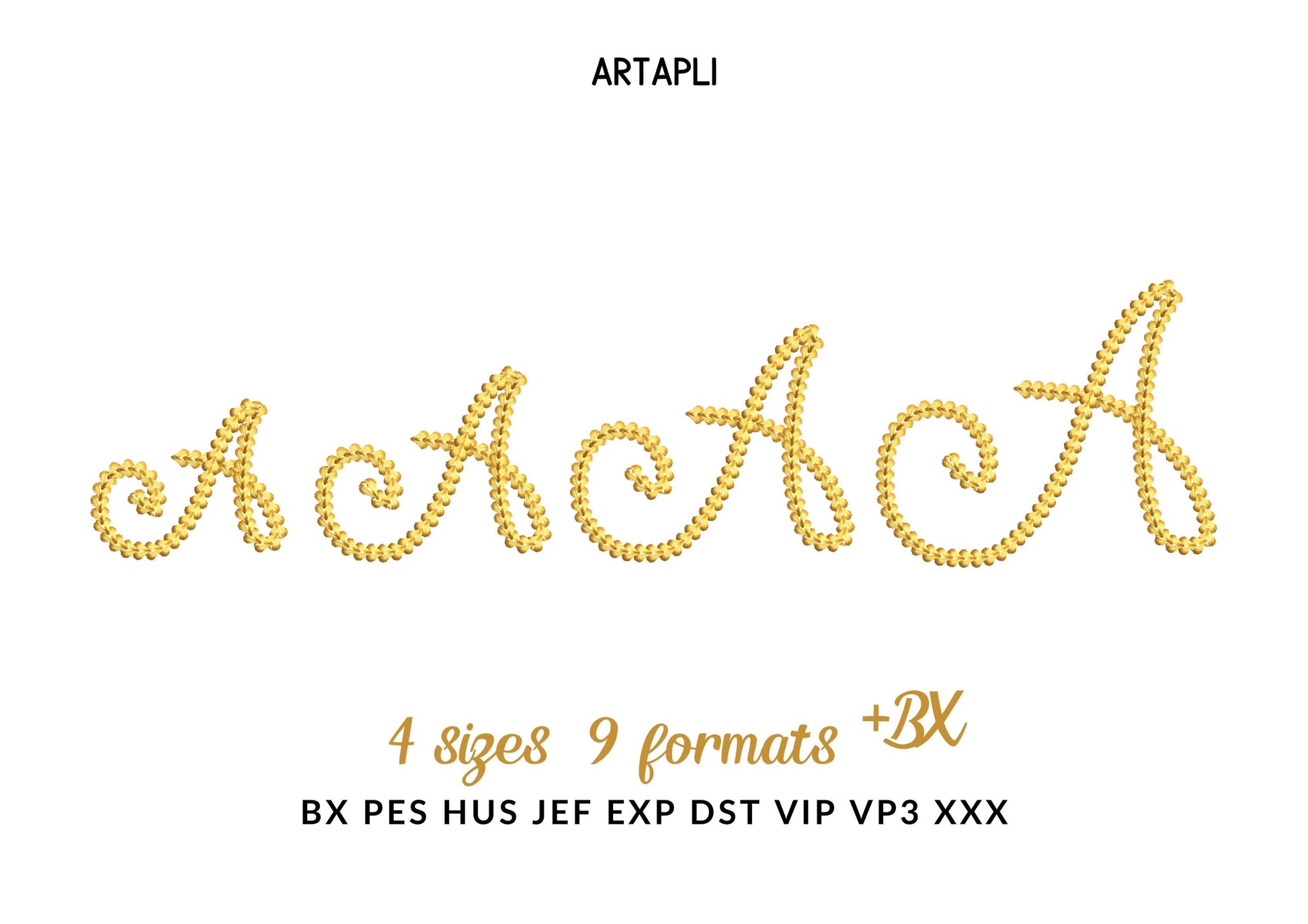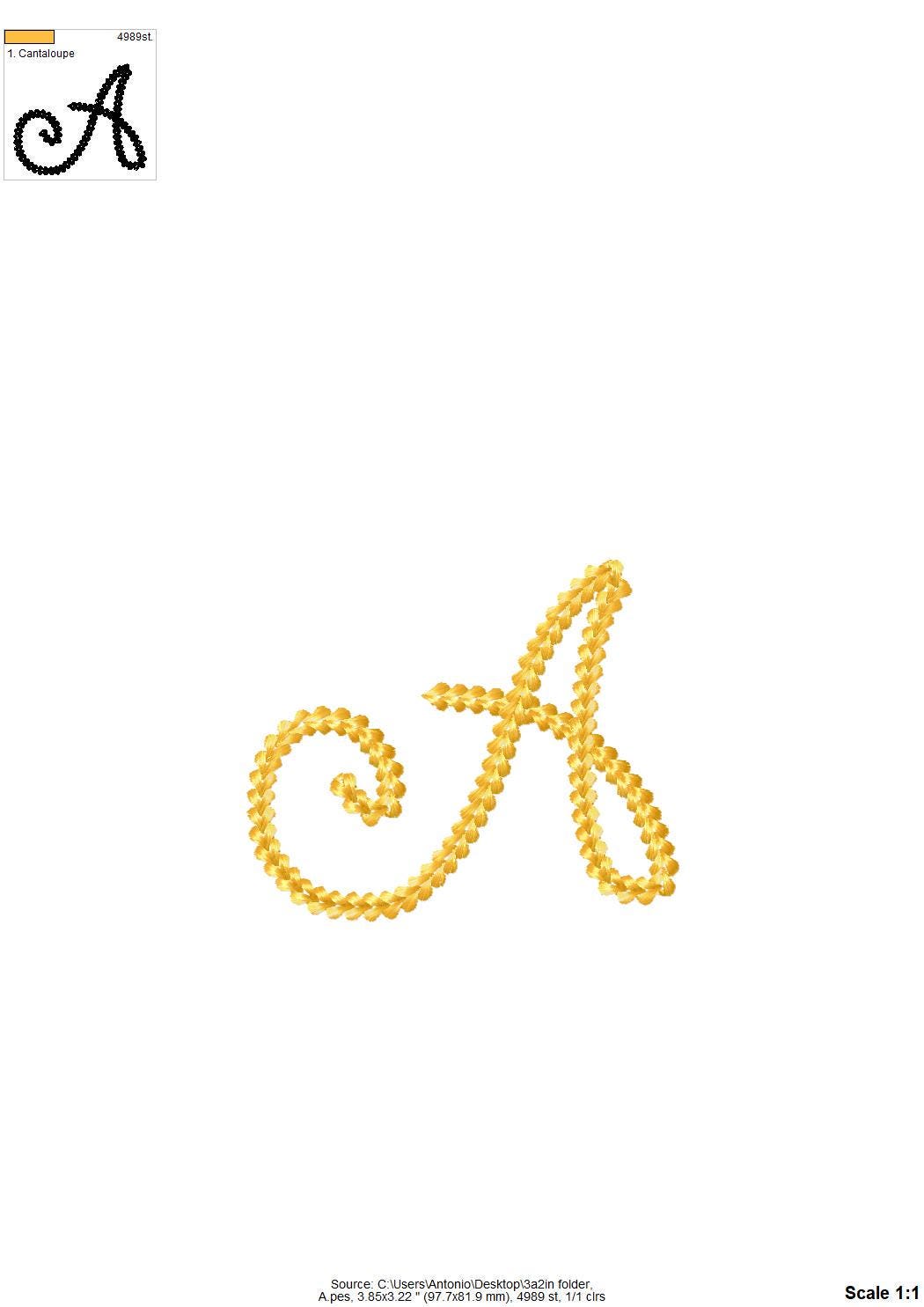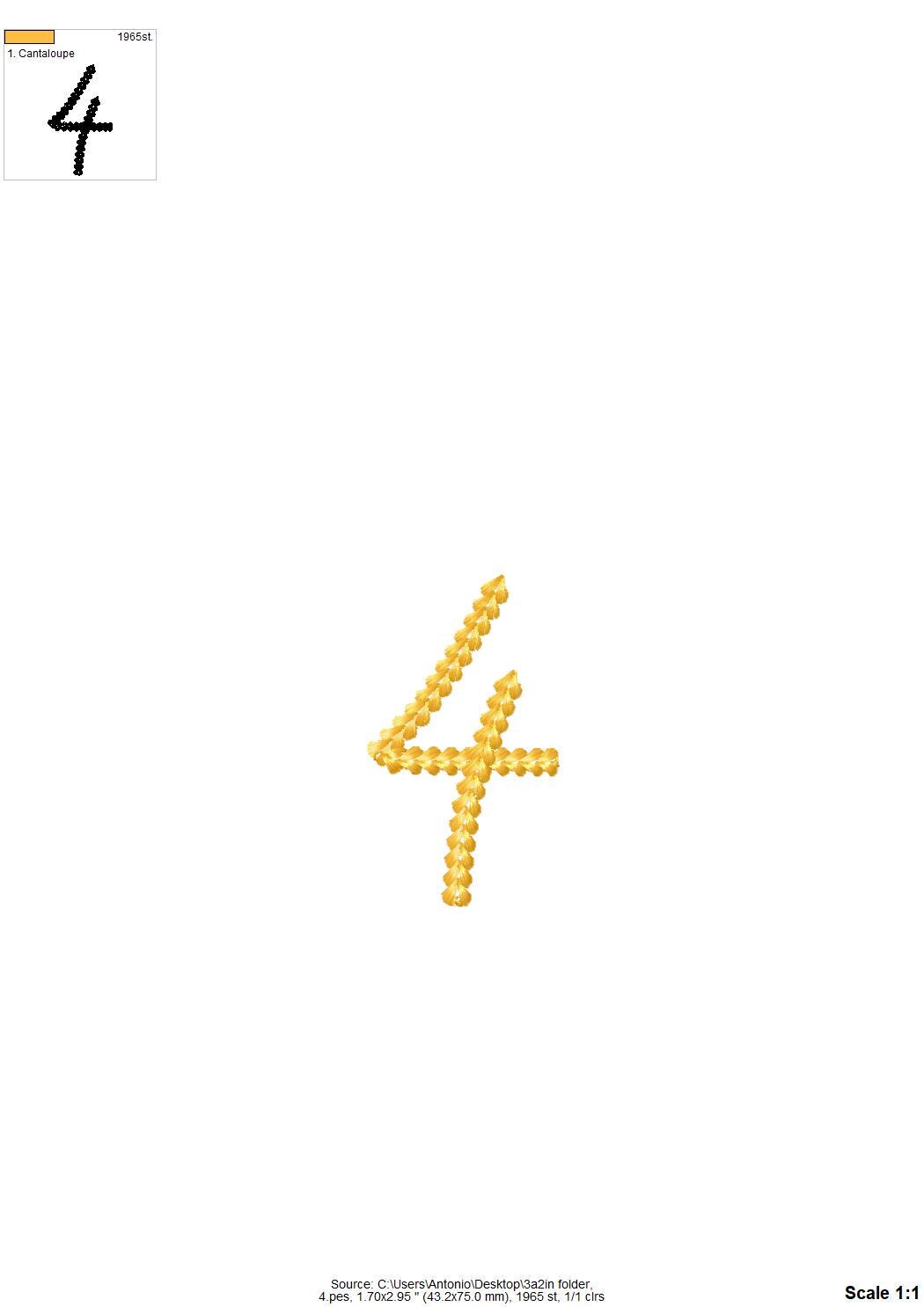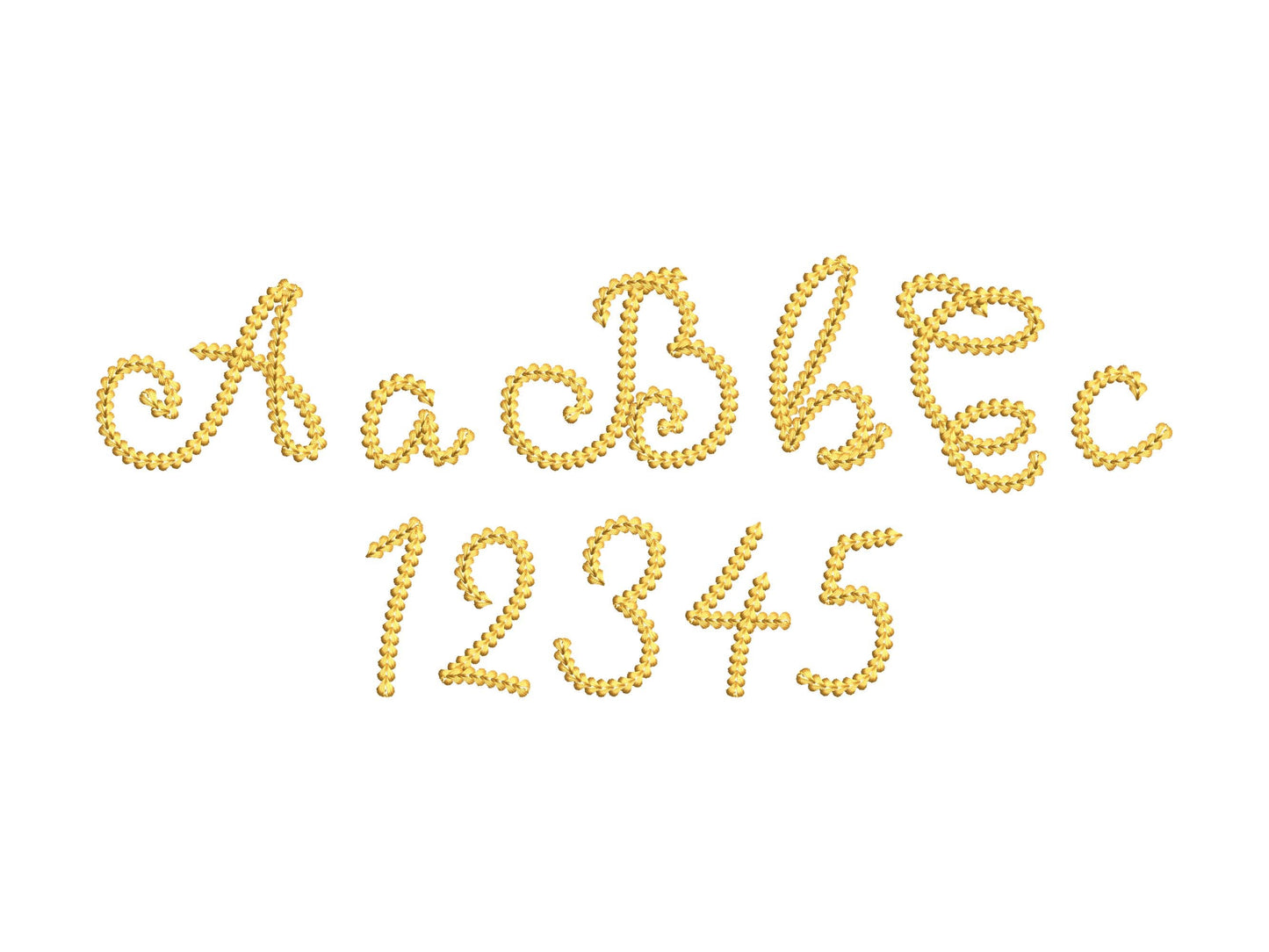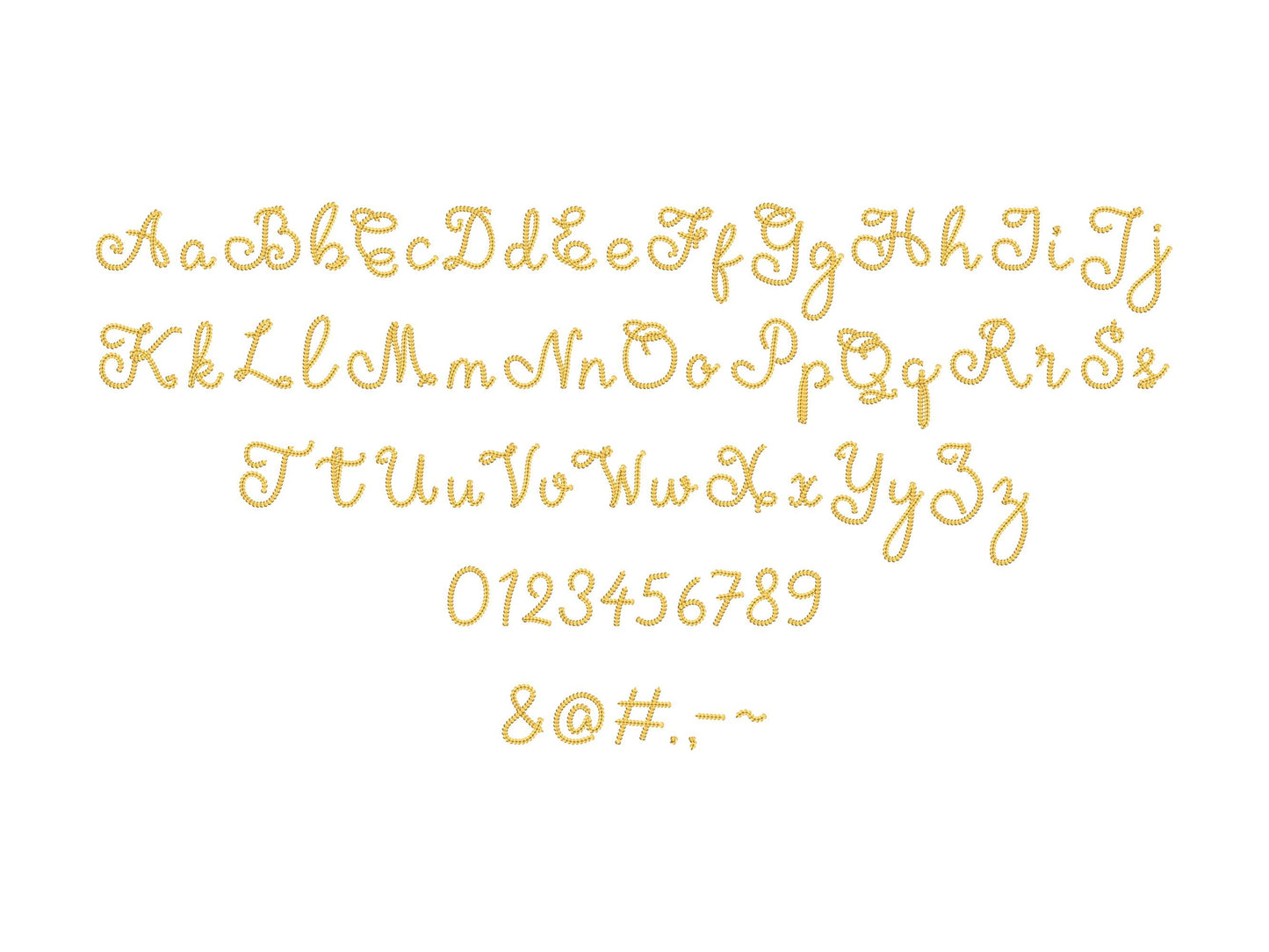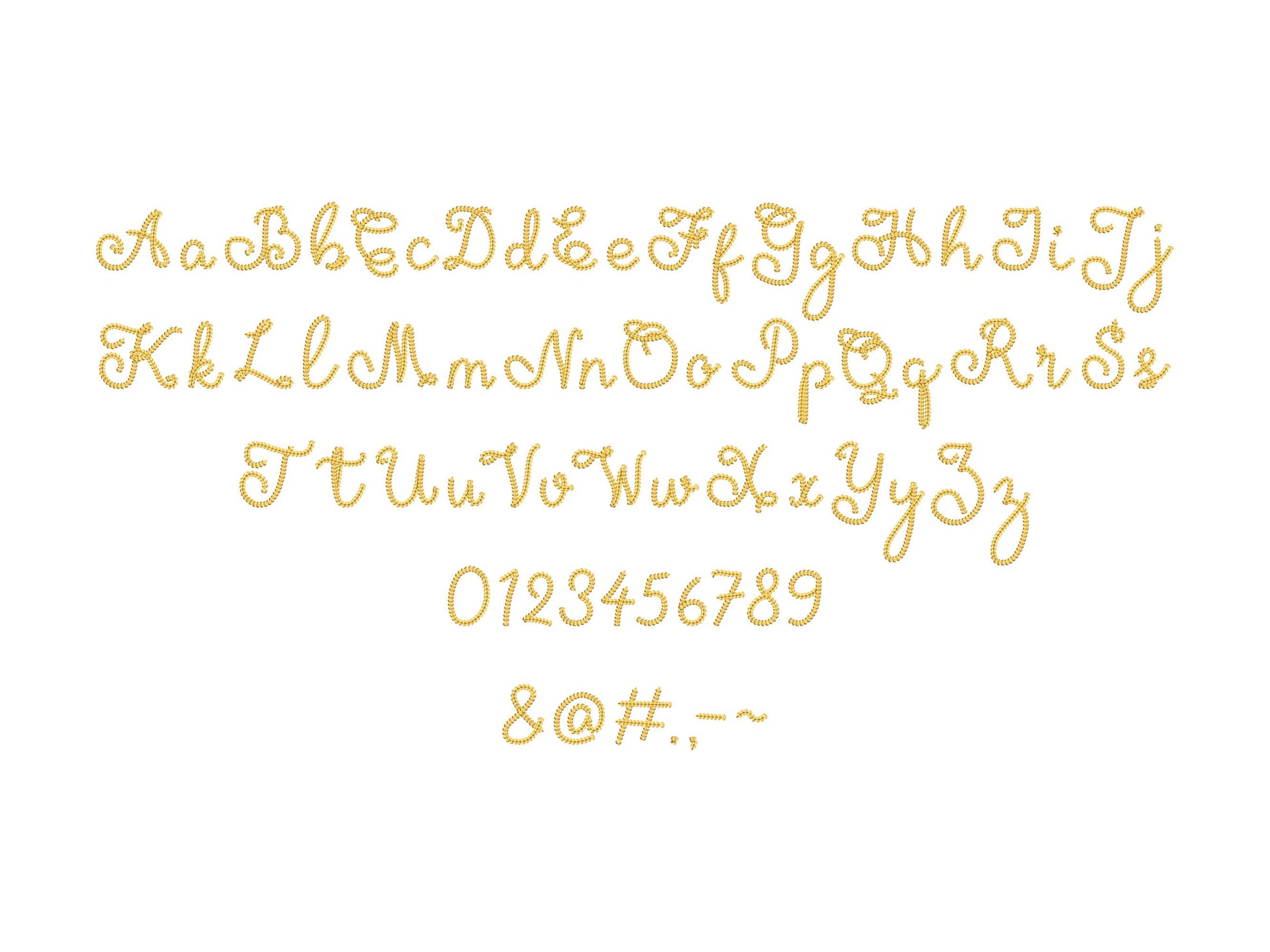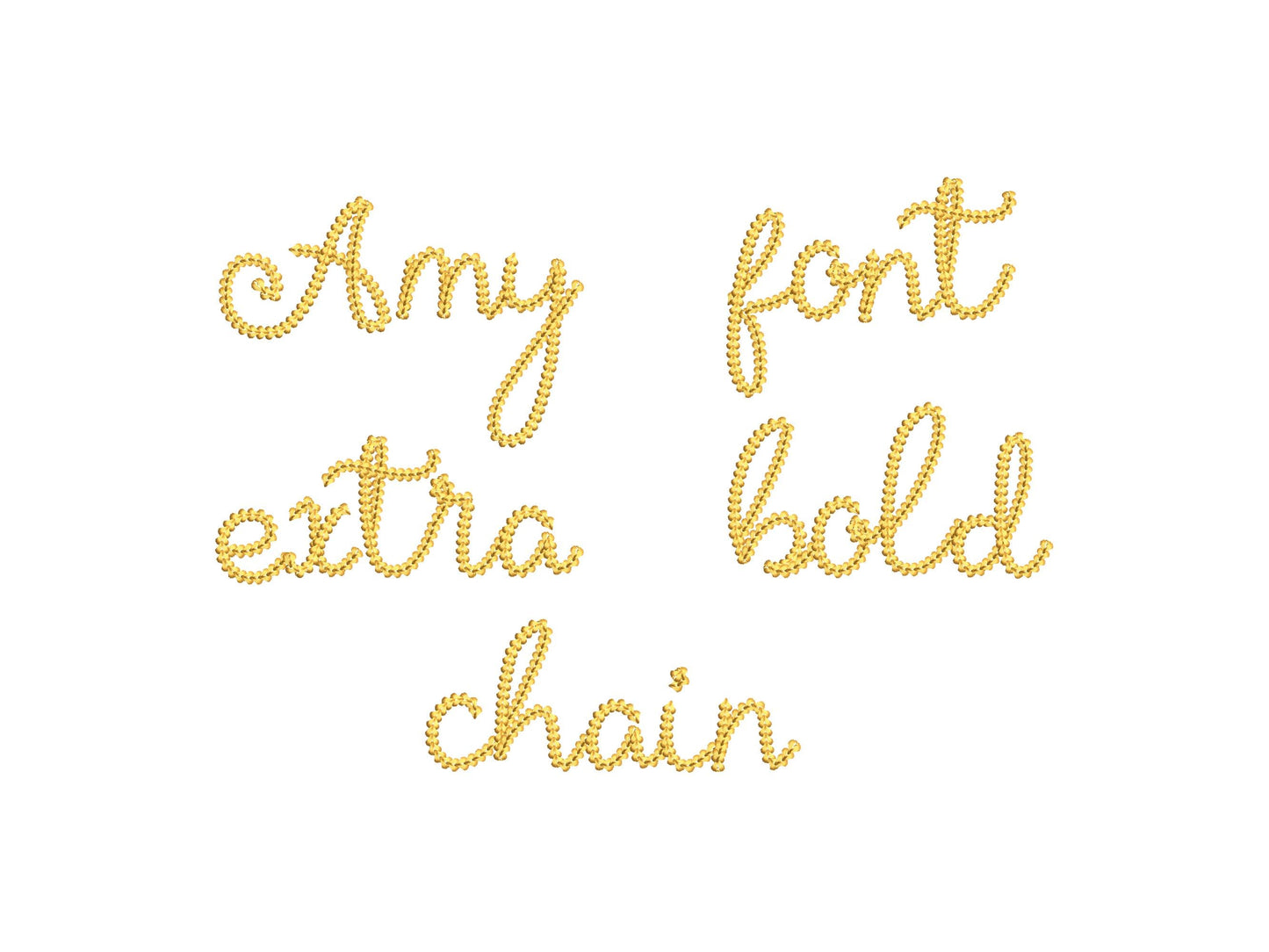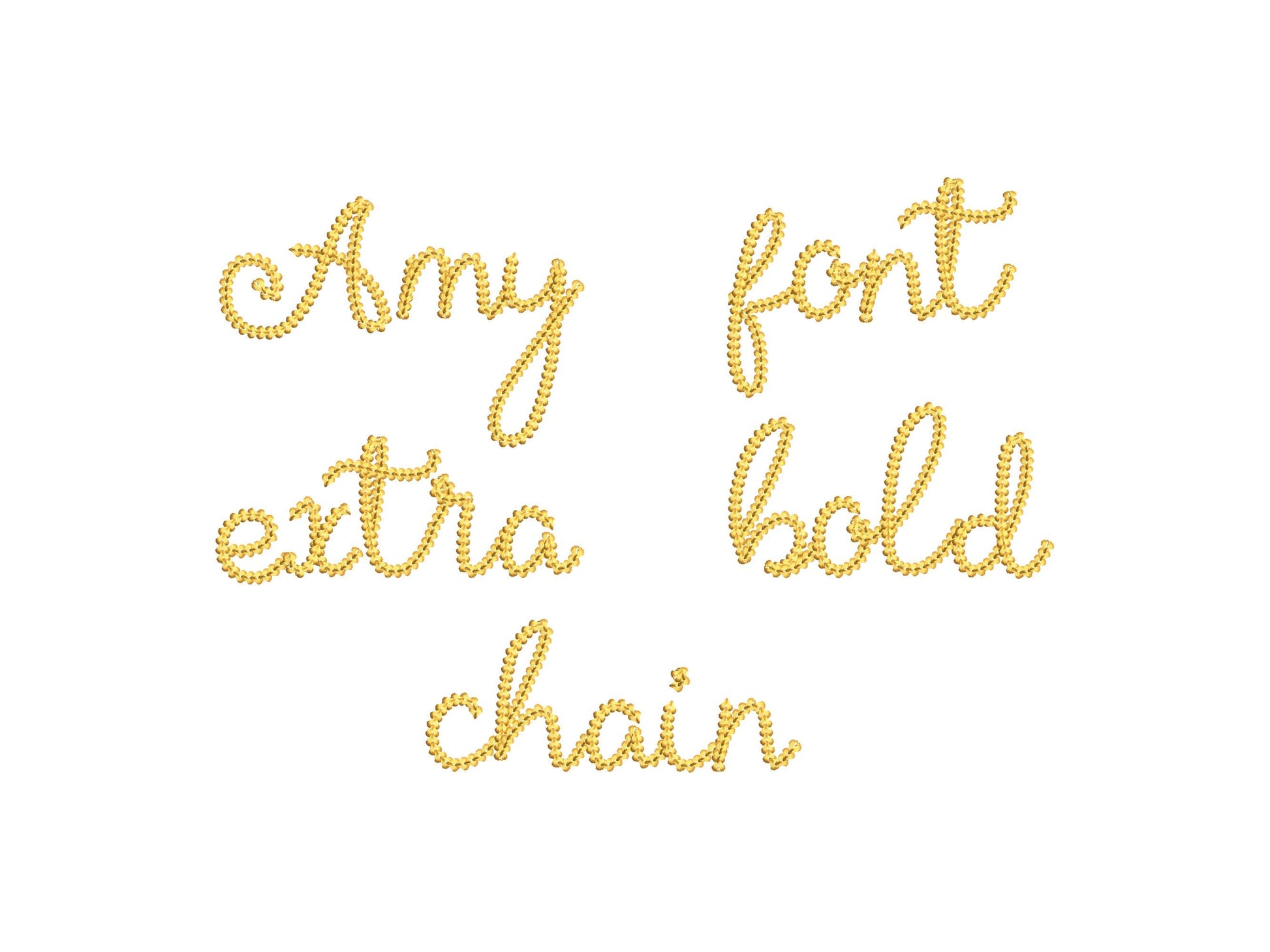
Extra Bold Chain Stitch Handwritten Font Amy
Or click to open the linkAn extra bold chain stitch script with a hand-knit sweater look, for names on sweaters, jackets and bags.
Uppercase and lowercase letters, numbers and punctuation in four sizes: 2.2, 2.6, 3.2 and 3.9 inches.
- Extra bold chain stitch script font
- Uppercase, lowercase, numbers 0-9, punctuation